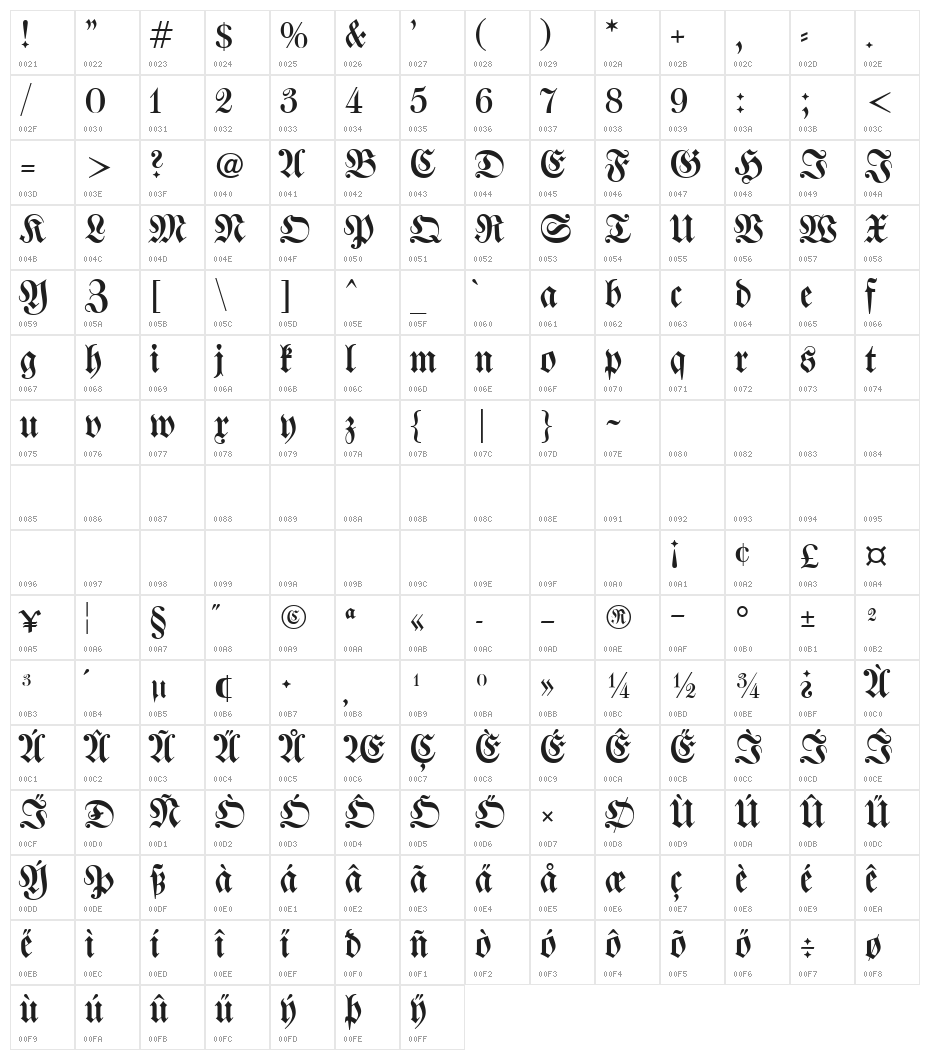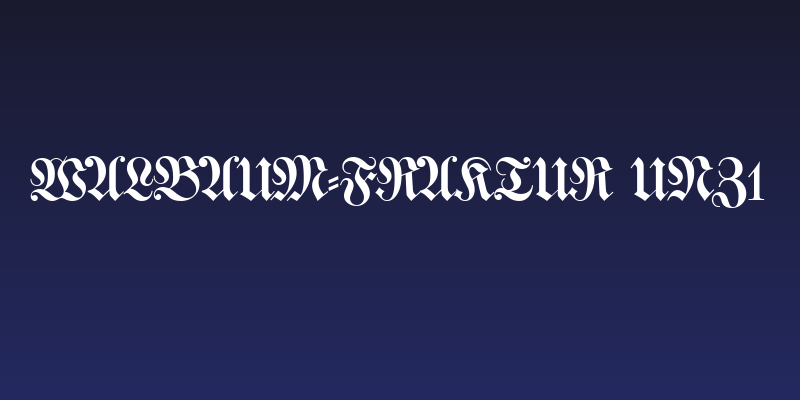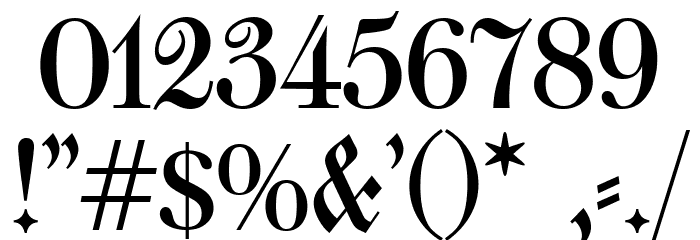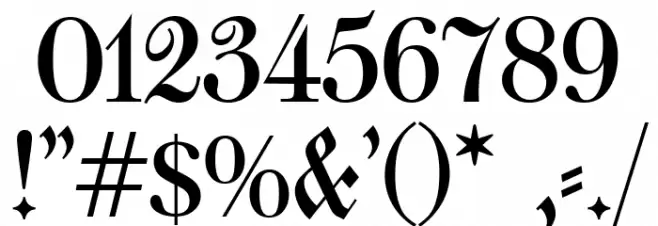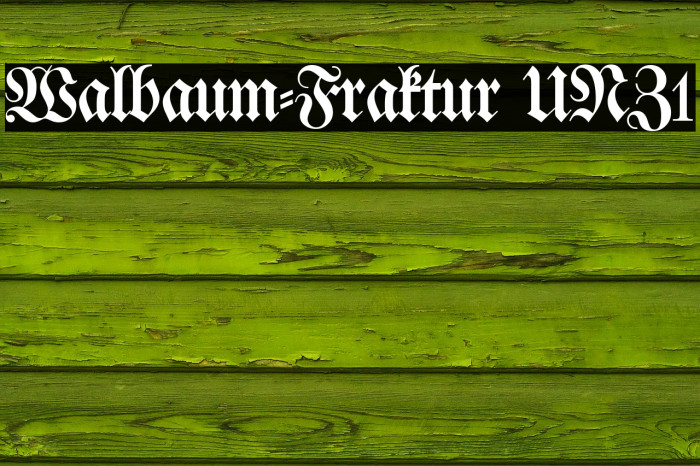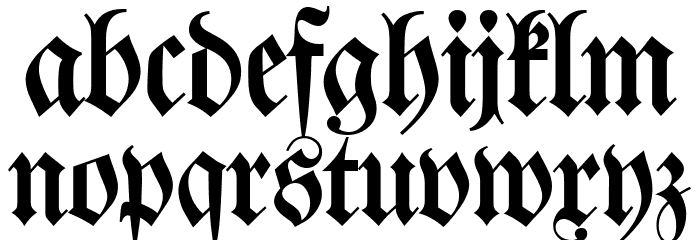
Walbaum-Fraktur UNZ1 Font
Walbaum-Fraktur UNZ1 Description
This font is a classic example of Blackletter typography, characterized by its intricate and ornate design. The uppercase letters exhibit a high level of detail with sharp, angular strokes and decorative flourishes, creating a sense of historical elegance. The lowercase letters maintain a consistent style, with bold, thick lines and pointed edges that enhance its traditional appearance. The numerals are equally stylized, featuring a blend of curves and angles that align with the overall aesthetic. Special characters are designed with similar attention to detail, ensuring a cohesive look across all glyphs. This font embodies a sense of antiquity and sophistication, making it suitable for projects that require a touch of historical or formal flair.
| Overall Style | Classic |
| Use Case | Headlines, Logos, Decorative text |
| Proposed Projects | Ideal for historical documents, certificates, wedding invitations, or any project seeking a traditional and formal appearance. |